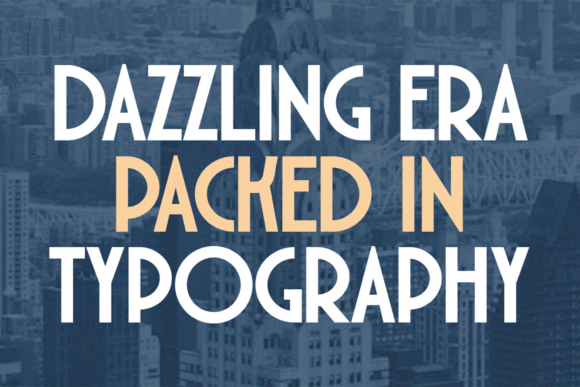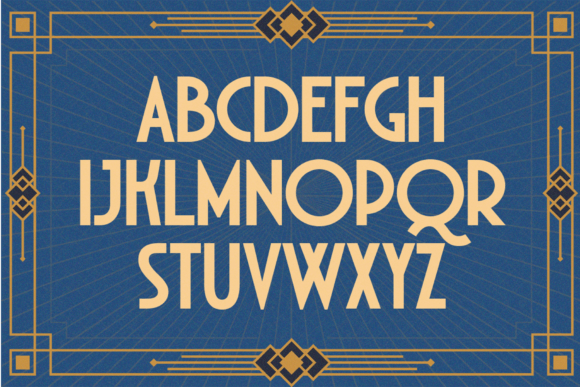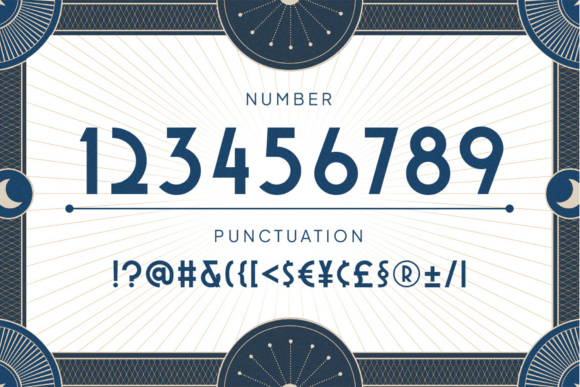
Introduction to Decort Font
Introducing Decort, a stunning Art Deco-inspired display font that radiates luxury, sophistication, and timeless elegance.
Designed to capture the dazzling energy of the roaring 1920s, Decort combines bold geometric shapes with refined symmetry — perfect for creating striking visuals that exude confidence and class Whether used for branding, logos, invitations, packaging, posters, or event titles, Decort instantly elevates any design with its glamorous touch and vintage charm.
Key Features of Decort Font